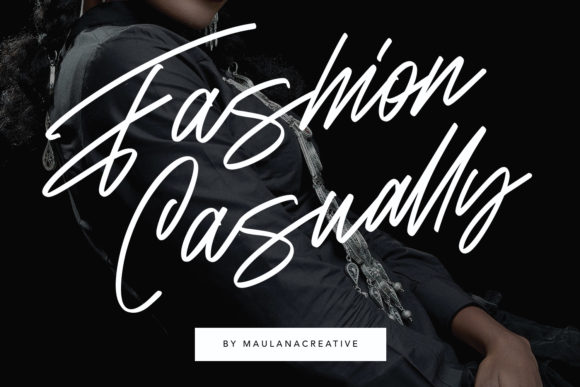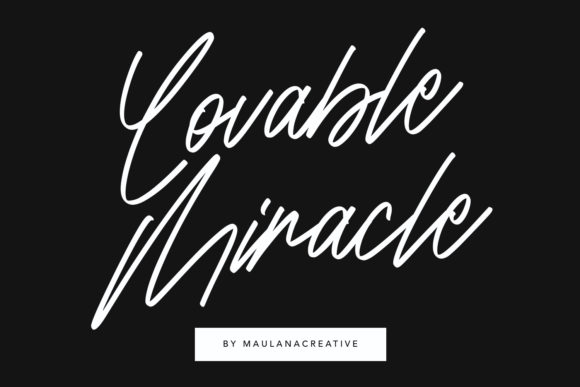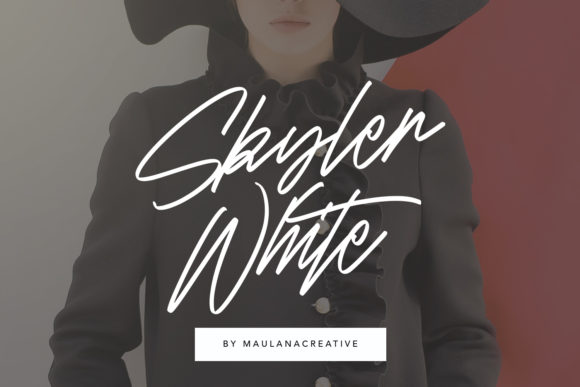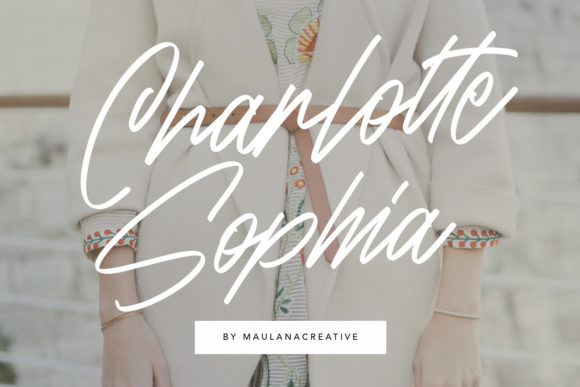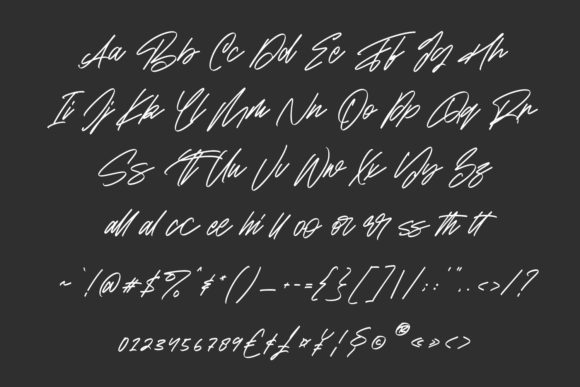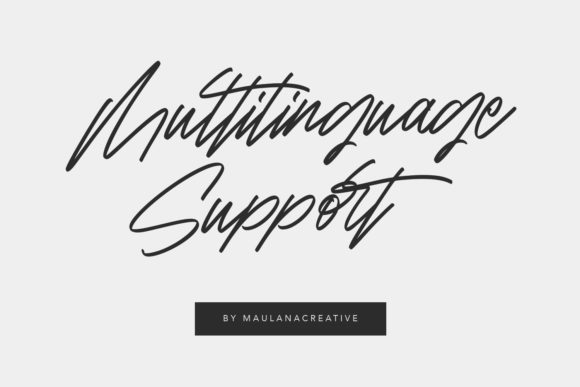
Unlock the Timeless Elegance of Beauty Flome Font
As a designer, there’s nothing quite like that moment when inspiration strikes – the perfect combination of colors, textures, and typography comes together, and you know you’ve created something truly special. For me, that moment often begins with a beautiful, handwritten font. And that’s where the Beauty Flome Font comes in – a stunning, elegant script that’s perfect for adding a touch of sophistication to any design project.
The Beauty Flome Font is more than just a pretty face; it’s a versatile and timeless style that can elevate anything from wedding invitations to social media posts. With its unique character and flowing lines, it’s the perfect choice for designers who want to add a touch of whimsy and romance to their work. Whether you’re a seasoned pro or just starting out, the Beauty Flome Font is an invaluable addition to any design toolkit.
Beauty Flome Font Key Features
- Font Family: Beauty Flome Font is a unique, high-end font family consisting of 6 different styles, including Regular, Italic, Bold, Bold Italic, Light, and Light Italic.
- Unique Characteristics: The font features a unique blend of modern and classic elements, with intricate details and ornate flourishes, making it perfect for luxury branding, high-end packaging, and premium publishing.
Designer Review: Beauty Flome Font
Overall, I think the Beauty Flome Font is a unique and intriguing addition to any design project. ✨ One of its strongest features is its fluid, handwritten feel, which lends itself perfectly to branding and editorial work. ✨ The font’s subtle imperfections and varying line widths add a touch of personality to any text, making it stand out from more generic sans-serif fonts. ✨
- Unique, handwritten feel that adds personality to text
- Subtle imperfections and varying line widths create visual interest
- Fluid, elegant curves make it suitable for branding and editorial work
Limited by:
- ⚠️ Limited font sizes: The font appears to be most effective at smaller sizes, where its unique characteristics shine. At larger sizes, the font can become difficult to read and may lose its charm.
- ⚠️ Limited language support: I noticed that the font may not be optimized for certain languages, which could lead to formatting issues or poor readability.
Overall, I think the Beauty Flome Font is a great choice for designers looking to add a touch of personality to their work. However, it’s essential to consider its limitations and use it judiciously to get the best results.
The Beauty Flome Font is ideal for designing beauty and wellness-related materials, such as:
– Marketing materials (brochures, flyers, business cards)
– Website and social media content
– Print materials (posters, banners, menus)
For best results, use the Beauty Flome Font in combination with other elegant and modern design elements, such as:
– Minimalist backgrounds
– Simple graphics and illustrations
– Neutral color schemes
– Clean typography